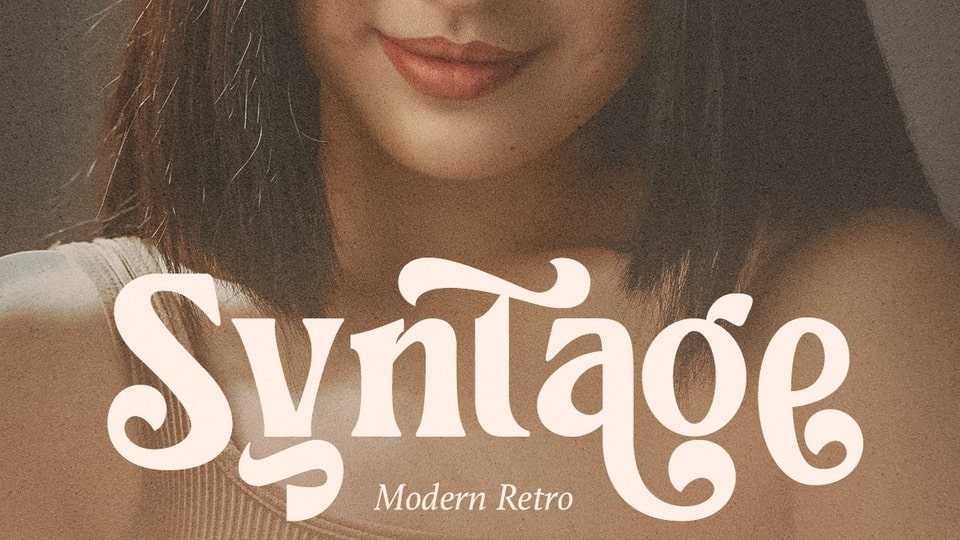
Download Syntage font, a sophisticated serif typeface with all the nostalgic vibes that looks incredible in both large and small settings as a display and body text.